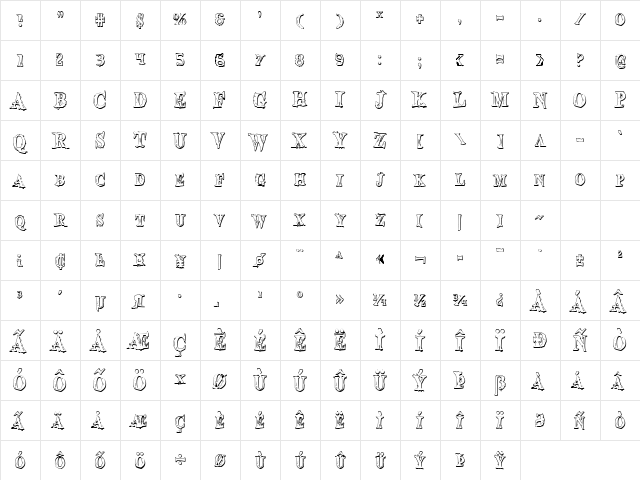
Complete Blood Crow Shadow Condensed glyph index. Displaying only characters natively supported by Blood Crow Shadow Condensed font.
Blood Crow Shadow Condensed carries an unsettling edge - its distorted letterforms are built to unsettle, perfectly suited to horror, Halloween, and dark creative work.
Font Pairing: Pair with a clean neutral sans-serif for body copy to let Blood Crow Shadow Condensed's character lead without overwhelming the composition.
Pro Tip: Use Blood Crow Shadow Condensed at larger display sizes for maximum impact. Consider generous tracking to let the disturbing character of each letterform breathe.